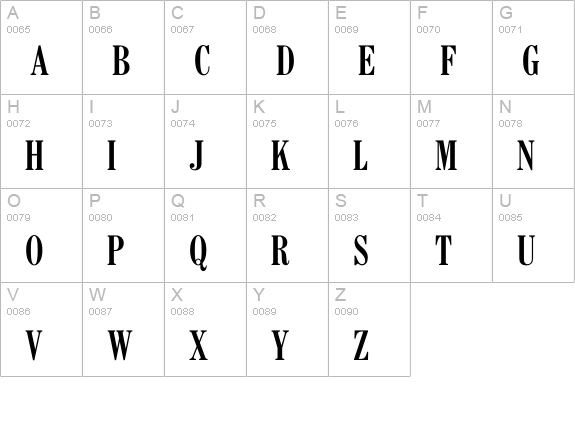
CenturyFB-BoldCondensed font is a bold and striking typeface that exudes power and confidence. With its condensed design, this font is perfect for making a strong statement in headlines, titles, and branding materials. The thick, bold strokes of CenturyFB-BoldCondensed demand attention and leave a lasting impression on the reader. Best of all, CenturyFB-BoldCondensed font is available for free download at FontsMarket.com. This means you can easily access this powerful and dynamic font to enhance your design projects without any cost. Whether you're working on posters, logos, or website headers, CenturyFB-BoldCondensed font will help you make a bold impact and stand out from the crowd. Download it today and elevate your designs with this impressive typeface.